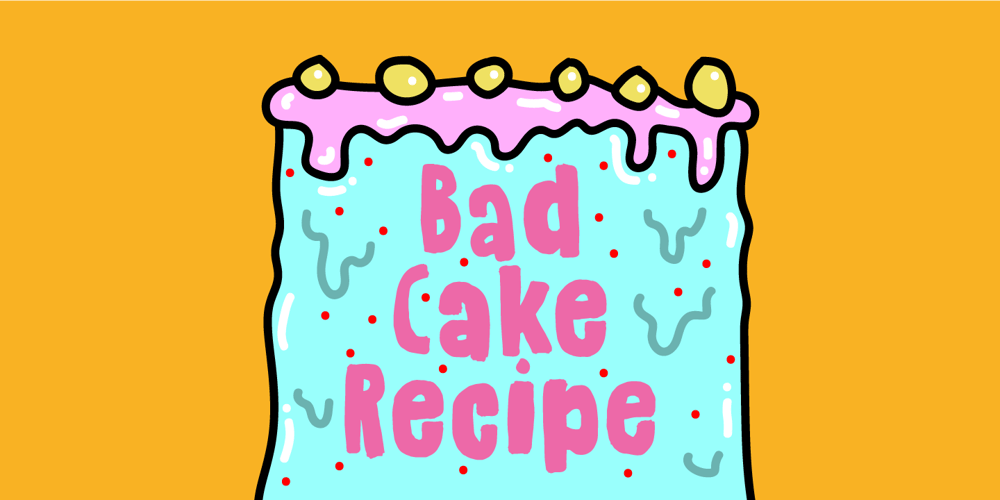
Bad Cake Recipe Font Family was designed by Jakob Fischer and published by Bogstav. Bad Cake Recipe contains 2 styles and family package options. I’ve had a lot of lovely cakes through the years (My wife is a great cook!)But I’ve also tried some really…ehem…not so good cakes.Actually, the worst cake I ever had, was at work – if you didn’t know, I work as a kindergarten teacher – and the cake was made by one of the kids!Anyway, this font was made as a sort of tribute to that cake – the font may not represent something that is smooth and lovely, but it was made with lots of personality and love – just like that cake from that kindergarten kid!